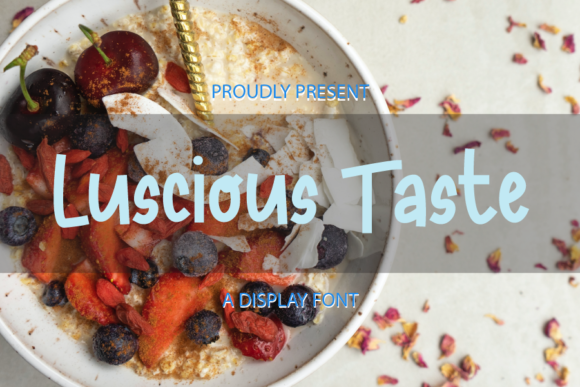
Welcome to the realm of Luscious Taste, a display font family that embodies elegance, creativity, and captivating charm. This extraordinary font collection is the brainchild of merge354, a renowned font designer known for their exceptional attention to detail and artistic flair.
Picture yourself crafting visually stunning logos that exude sophistication, branding materials that radiate personality, and quotes that resonate with your audience's hearts. Luscious Taste empowers you to transform ordinary words into captivating works of art.
Each letter in this font family is meticulously designed with unique and beautiful touches, adding a sprinkle of visual intrigue to your creations. The result? Designs that come alive, capturing the attention of your audience and leaving a lasting impression.
But Luscious Taste isn't just another font; it's an experience. It's a journey into a world of boundless creativity, where your imagination runs wild and your designs take center stage. With this font family, you'll discover the power to elevate your projects, making them stand out from the crowd and leaving a lasting impact.
Whether you're a seasoned designer or just starting your creative journey, Luscious Taste is the perfect companion. Its versatility knows no bounds, adapting seamlessly to a wide range of projects. From elegant invitations to eye-catching social media posts, from stylish product packaging to thought-provoking book covers, Luscious Taste effortlessly enhances the visual appeal of your designs.
So, embrace the allure of Luscious Taste and embark on a creative adventure like never before. Let your imagination soar as you craft captivating designs that speak to the heart and ignite the senses. Experience the joy of turning ordinary words into extraordinary works of art. Your creativity deserves the best, and Luscious Taste is ready to take it to new heights.